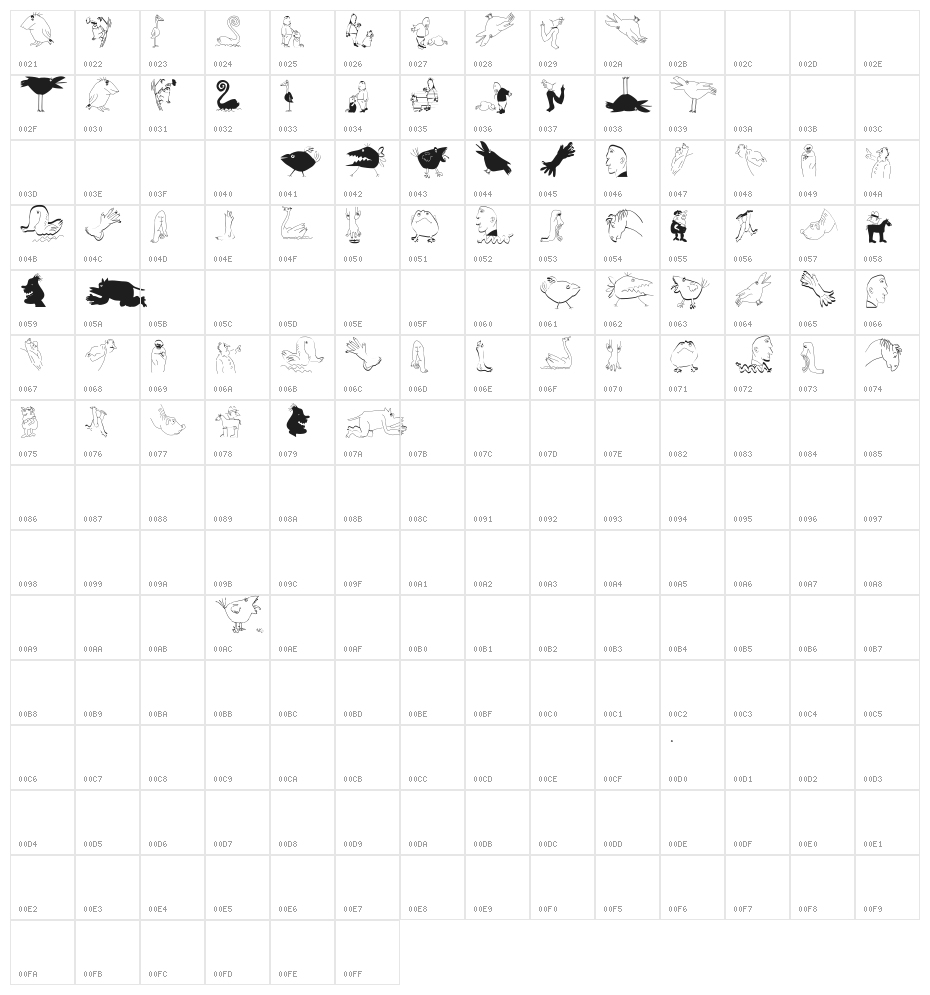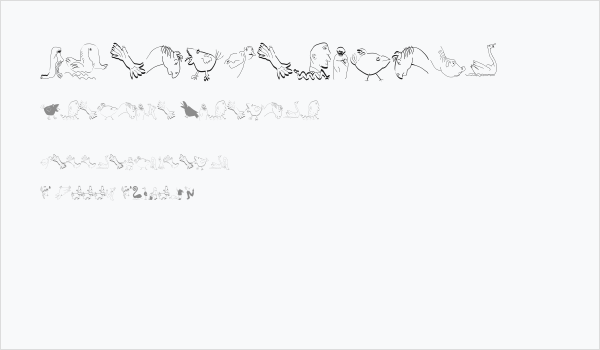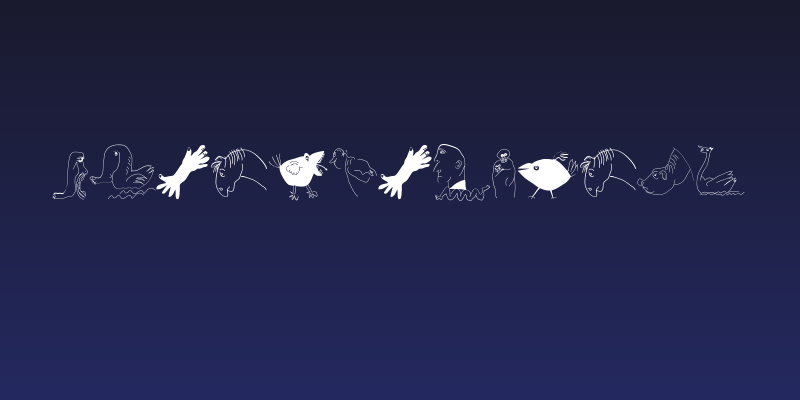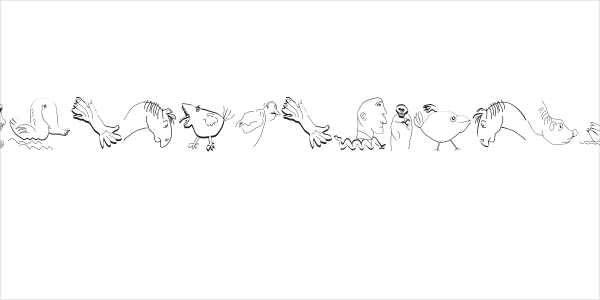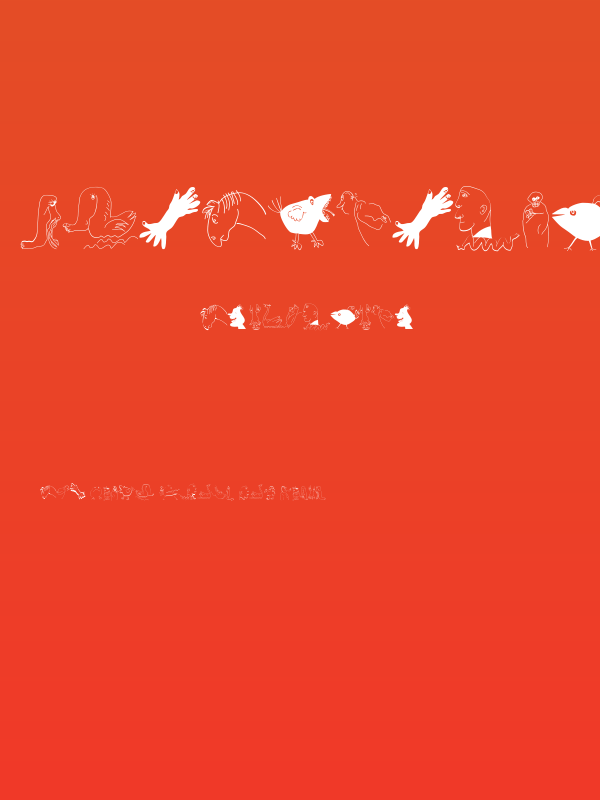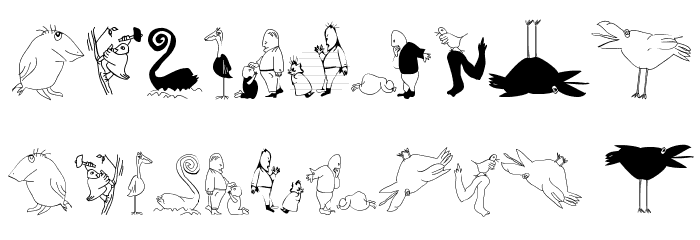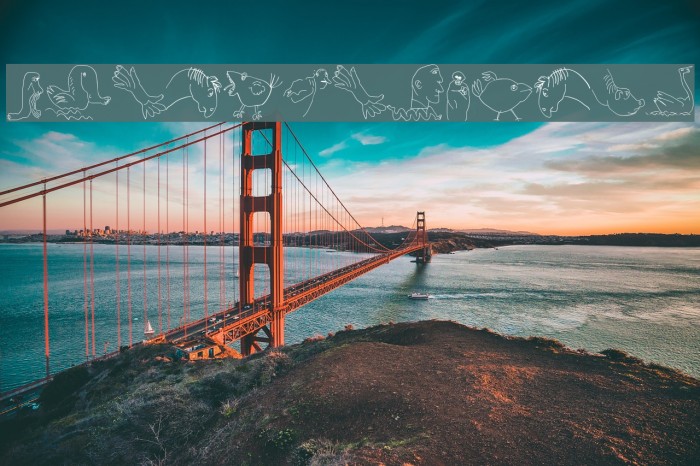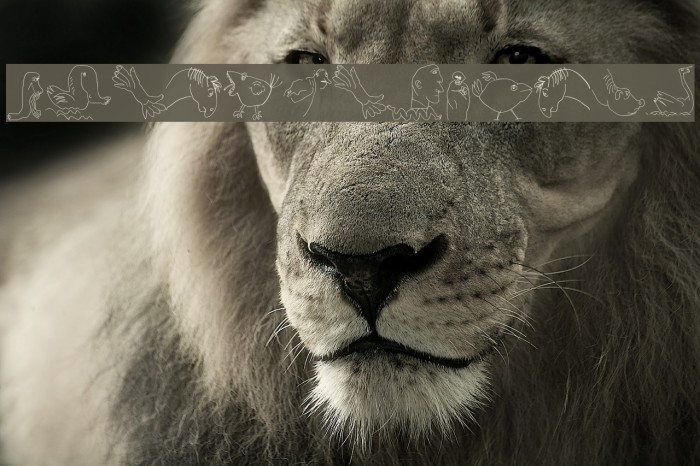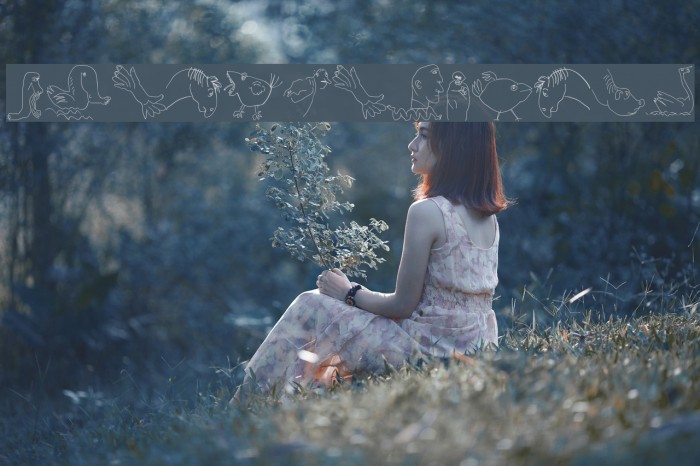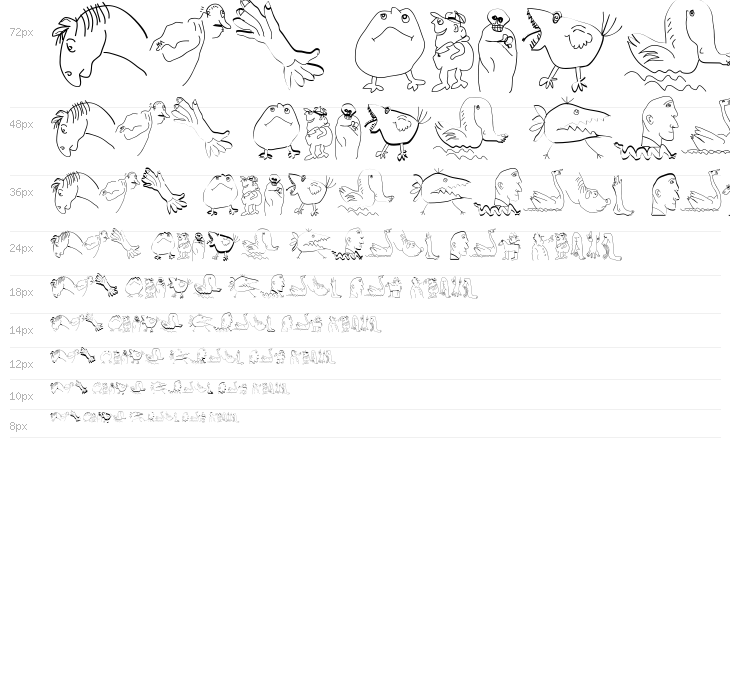
SketcheriaTwo Font
SketcheriaTwo Description
This font is a whimsical and artistic collection of characters, each represented by a unique and playful illustration. The designs are highly creative, featuring a variety of quirky animals and figures that add a sense of humor and lightheartedness. The font lacks traditional letterforms, instead offering a series of imaginative sketches that convey a story or theme. Each character is distinct, with varying levels of detail and complexity, making it suitable for projects that require a touch of creativity and fun. The overall style is reminiscent of doodles or cartoons, with a hand-drawn aesthetic that emphasizes individuality and artistic expression.
| Use Case | Logos, Posters, Artistic Projects |
| Proposed Projects | Ideal for children's books, creative posters, playful branding, and artistic projects. |